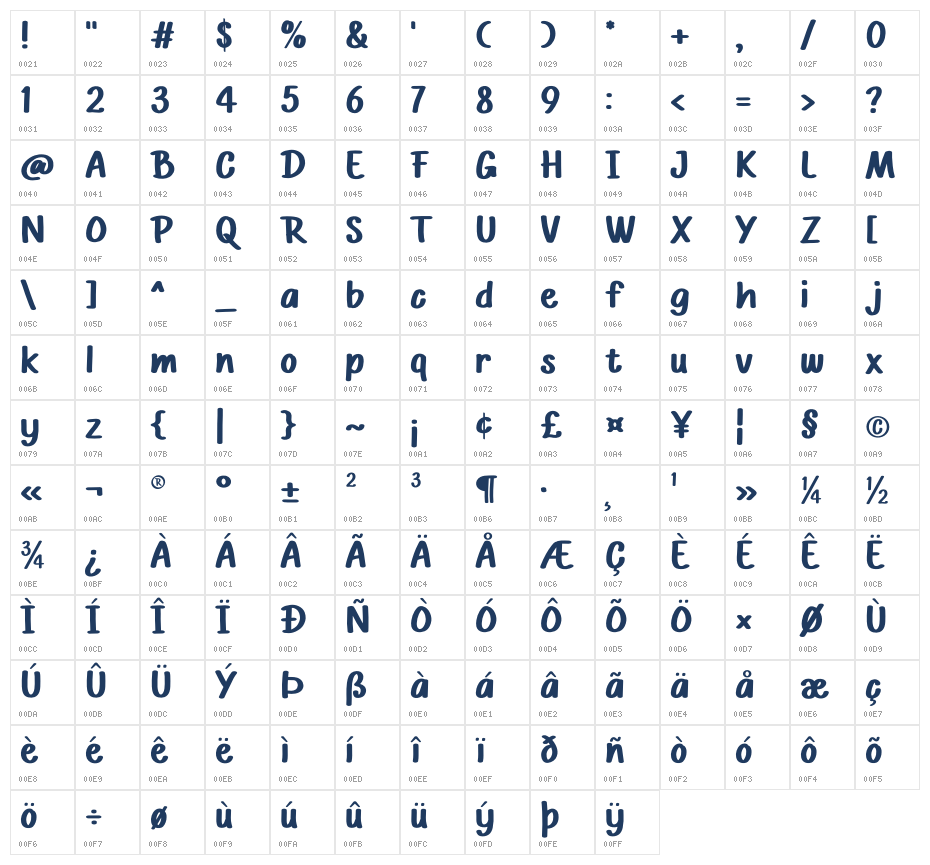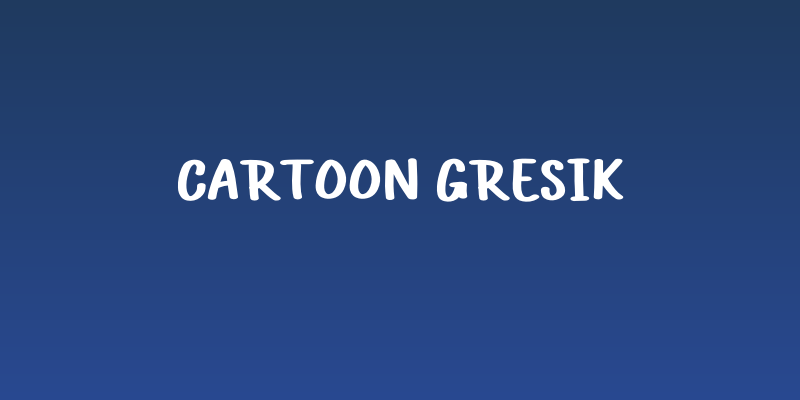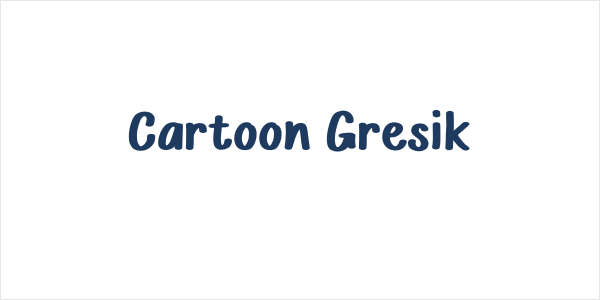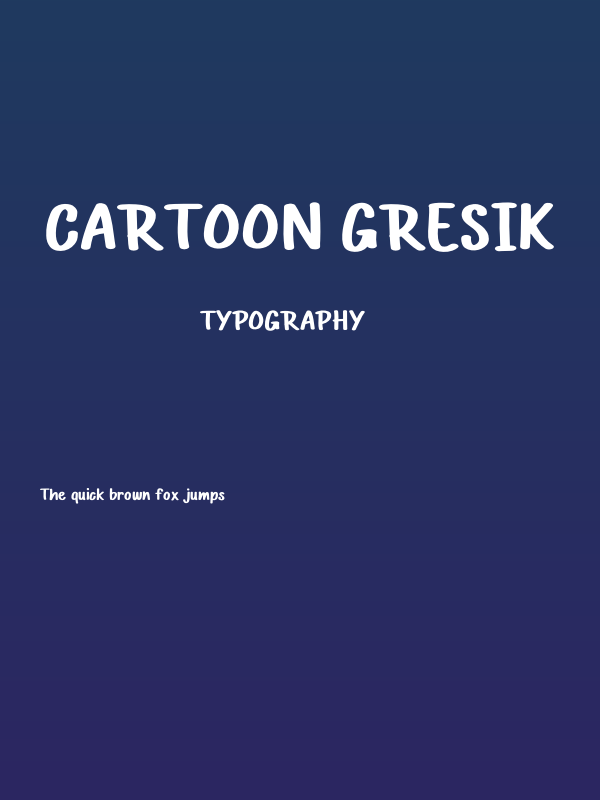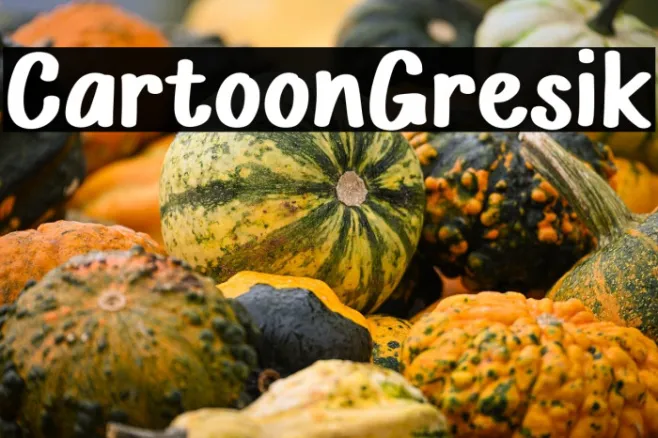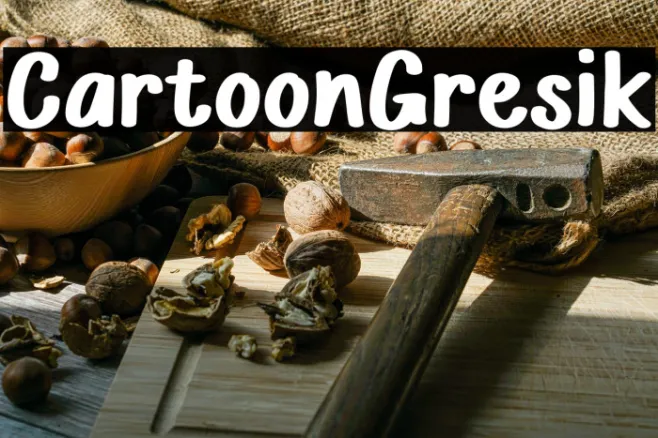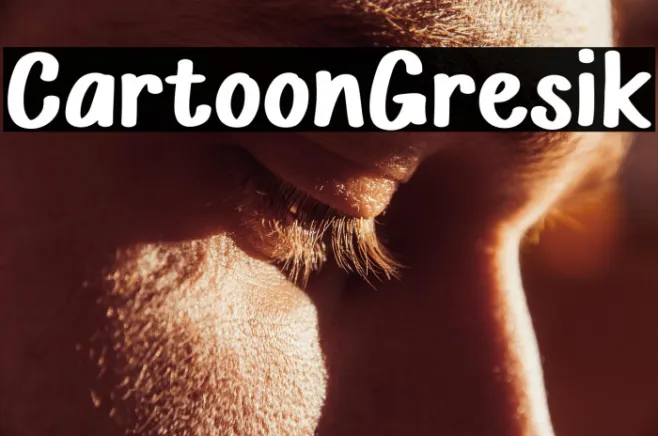
Cartoon Gresik Font
Cartoon Gresik Description
A playful, rounded, handwritten style font with bold, smooth curves and a casual appearance.
| Overall Style | Casual, Playful, Handwritten |
| Use Case | Headlines, Posters, Children's materials, Social media |